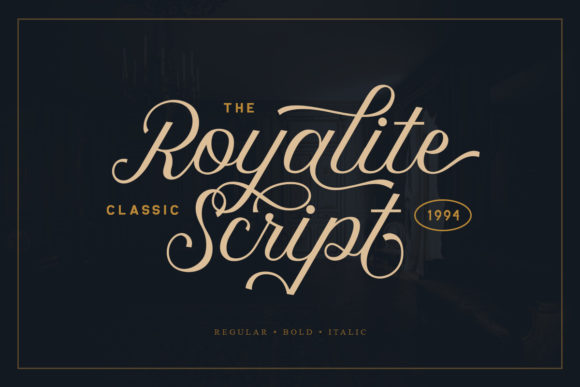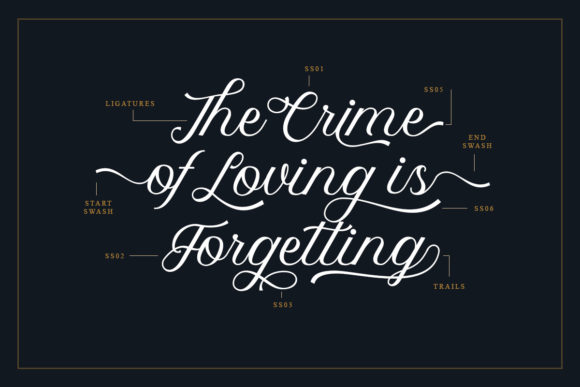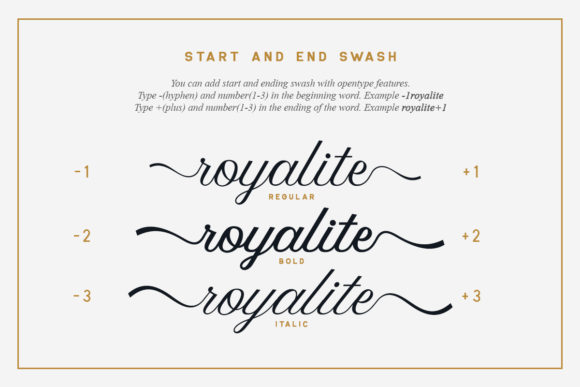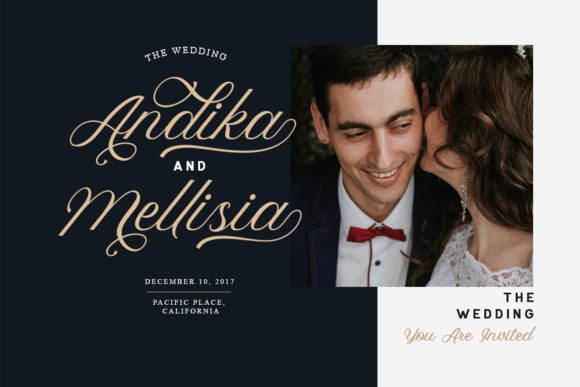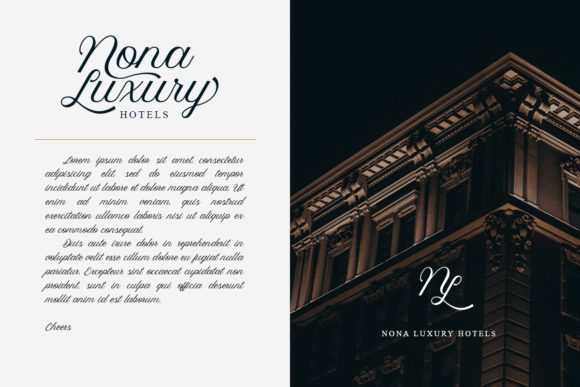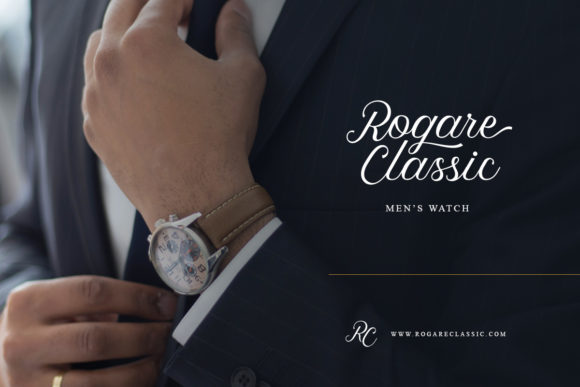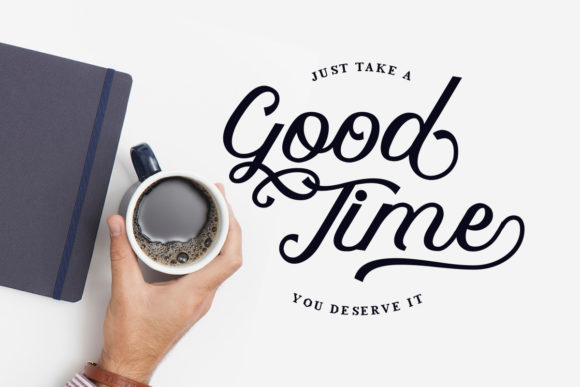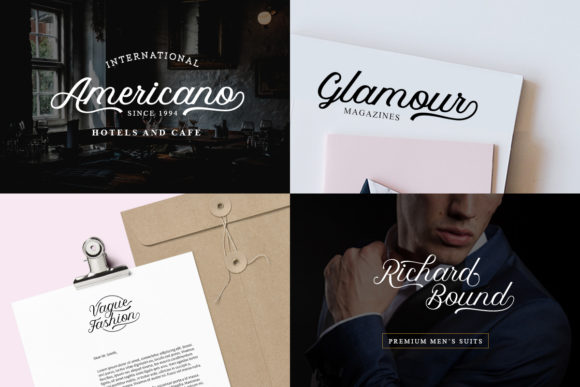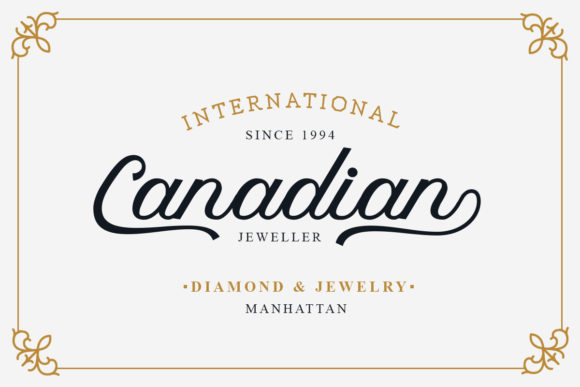
Royalite Script Family Font
About Royalite Script Family Font
The Royalite is a classic font script. It has an elegant and luxurious style which makes it perfect for fashion designs or for adding a feminine touch to your designs.